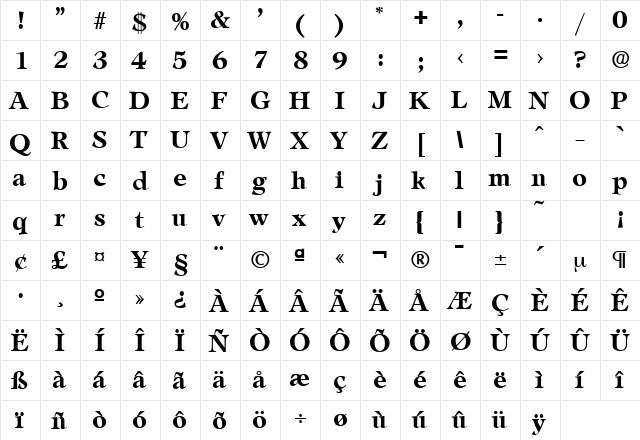
Leamington-Serial DB Bold
Design Context for Leamington-Serial DB Typeface
Leamington-Serial DB offers clean, dependable letterforms without strong stylistic allegiance, making it a practical choice for designers who need flexibility. The heavy weight commands attention and anchors typographic hierarchies.